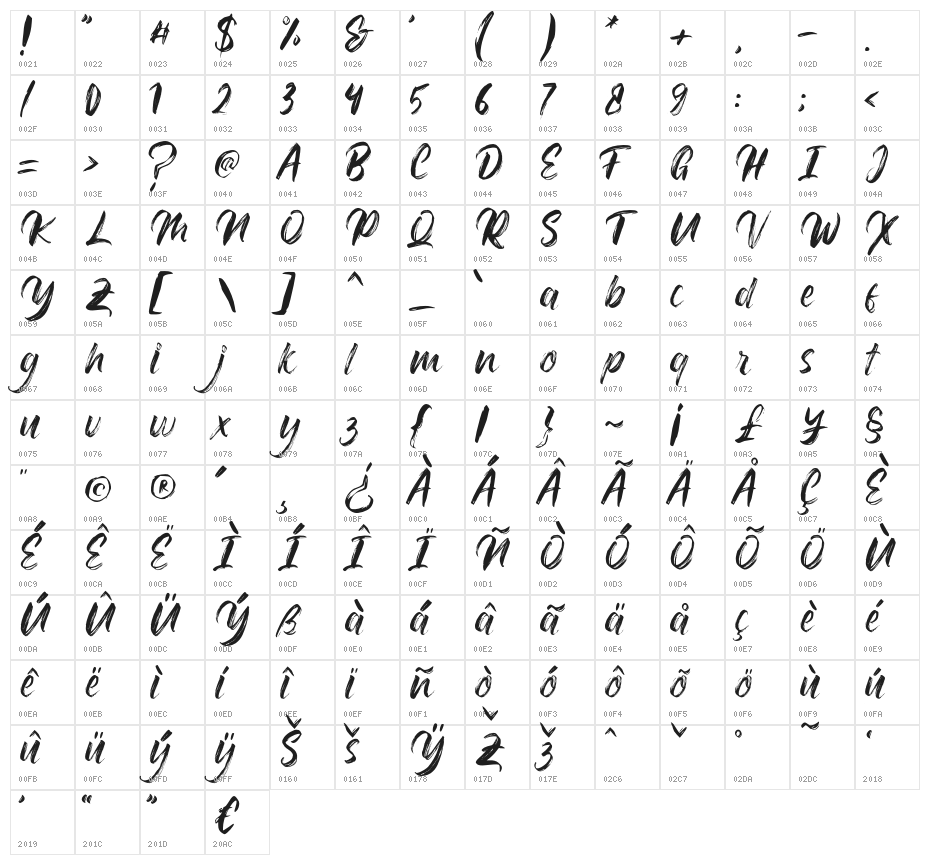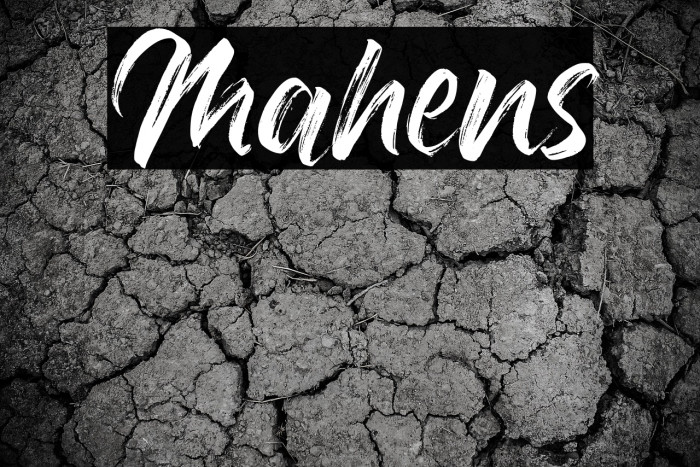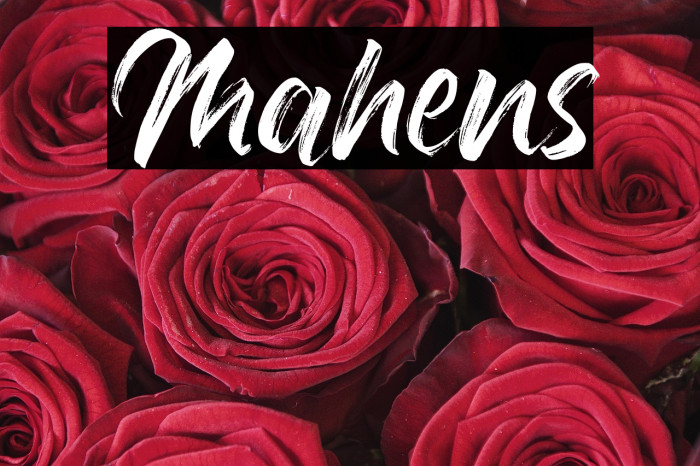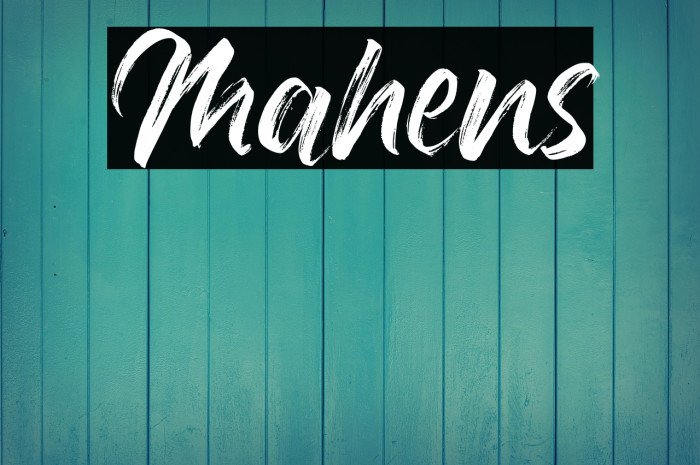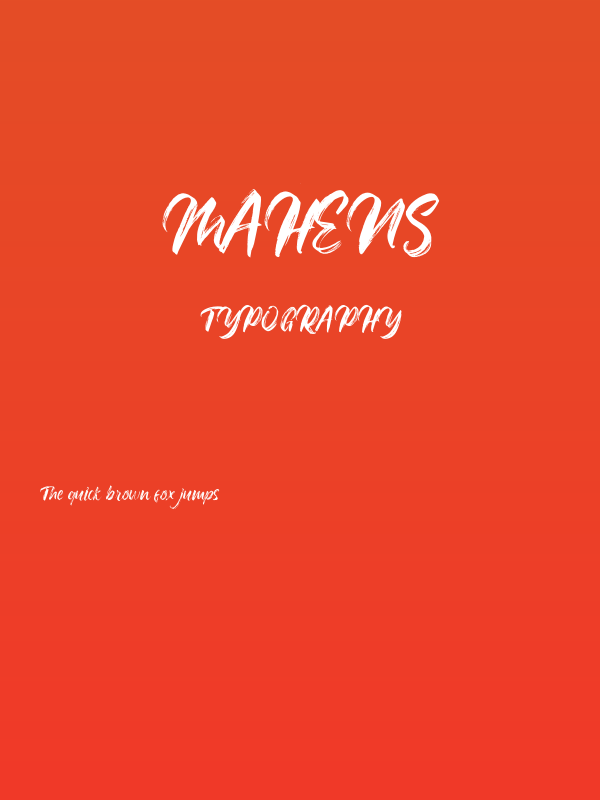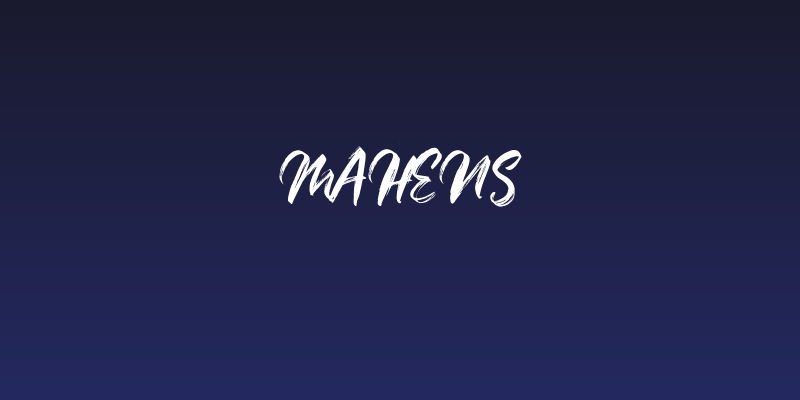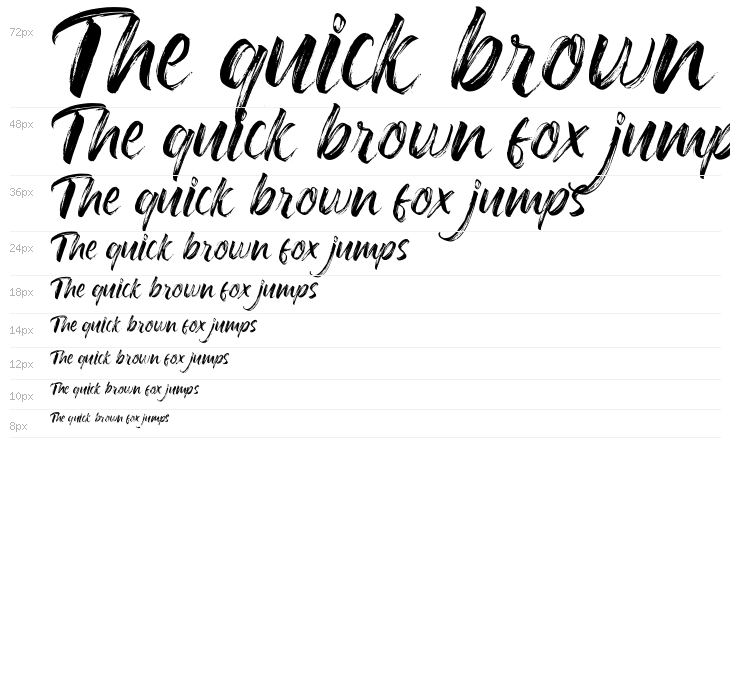
Mahens Font
Mahens Description
This font features a bold, expressive brush script style that exudes energy and creativity. The strokes are dynamic and fluid, with a hand-painted appearance that adds a personal touch to any design. The uppercase and lowercase letters are well-balanced, with a slight slant that enhances the casual, yet sophisticated feel. Numbers and special characters maintain the same artistic flair, making this font versatile for various applications. The texture of the strokes gives a sense of movement, while the varying thickness adds depth and interest. This font is perfect for projects that require a bold statement with a touch of elegance.
| Use Case | Logos, Headlines, Posters |
| Proposed Projects | Ideal for branding, packaging, posters, invitations, and social media graphics. |